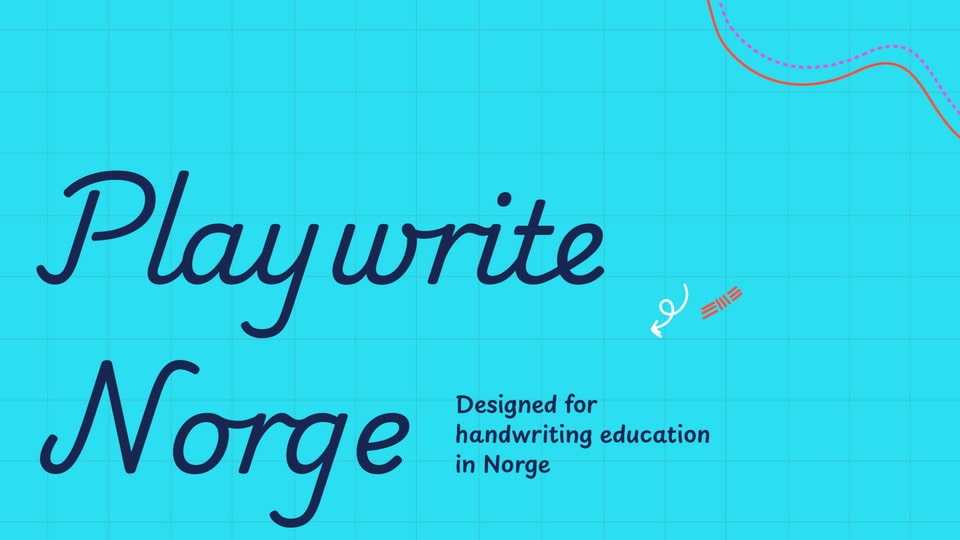
Download Playwrite font, a typeface that allows the creation of primary school cursive fonts. This modern cursive, semi-connected typeface includes elements from continuous cursive handwriting styles.
Designer: TypeTogether